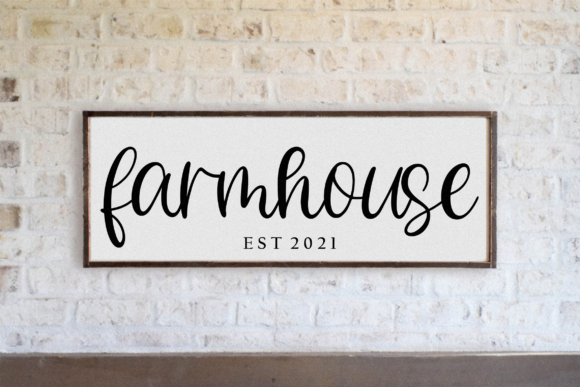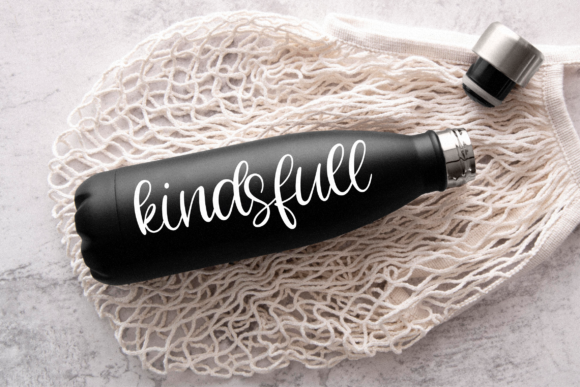
Bellafela Font
db-ku.com - Script & Handwritten -- Bellafela is a gorgeous handwritten font perfect for product packaging, branding project, magazines, social media posts, wedding invitations, or you can use it to express yourself with beautifully handwritten words!